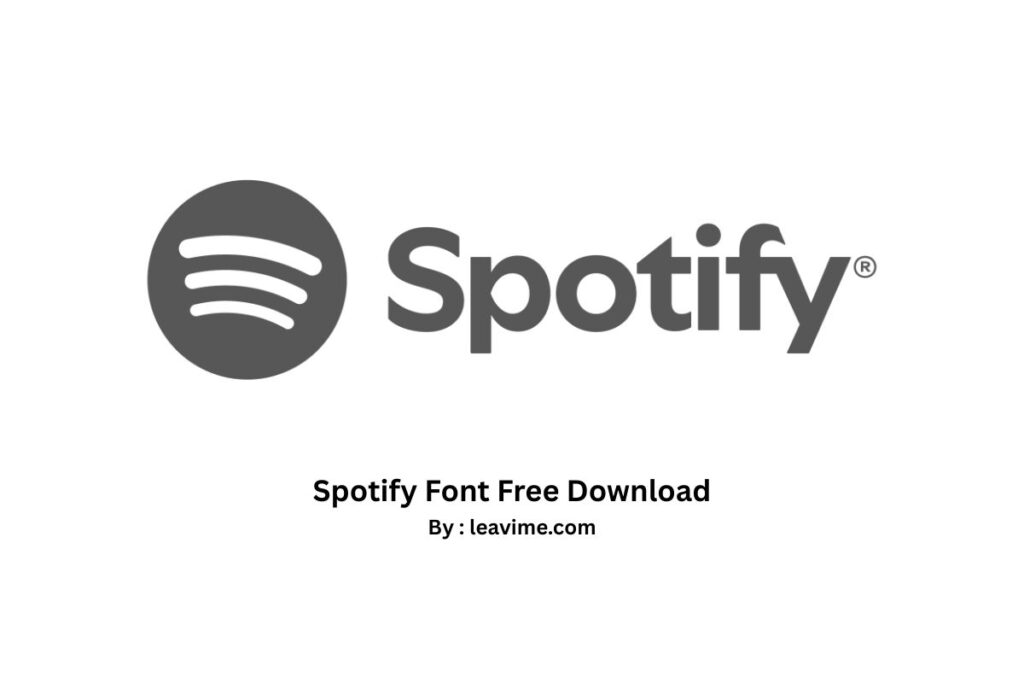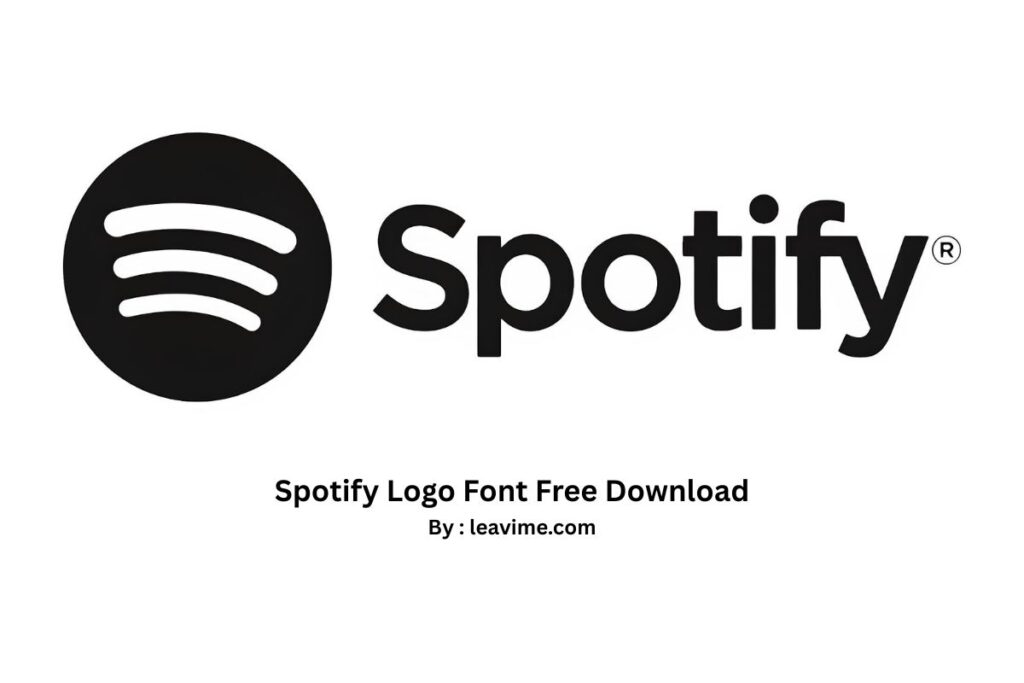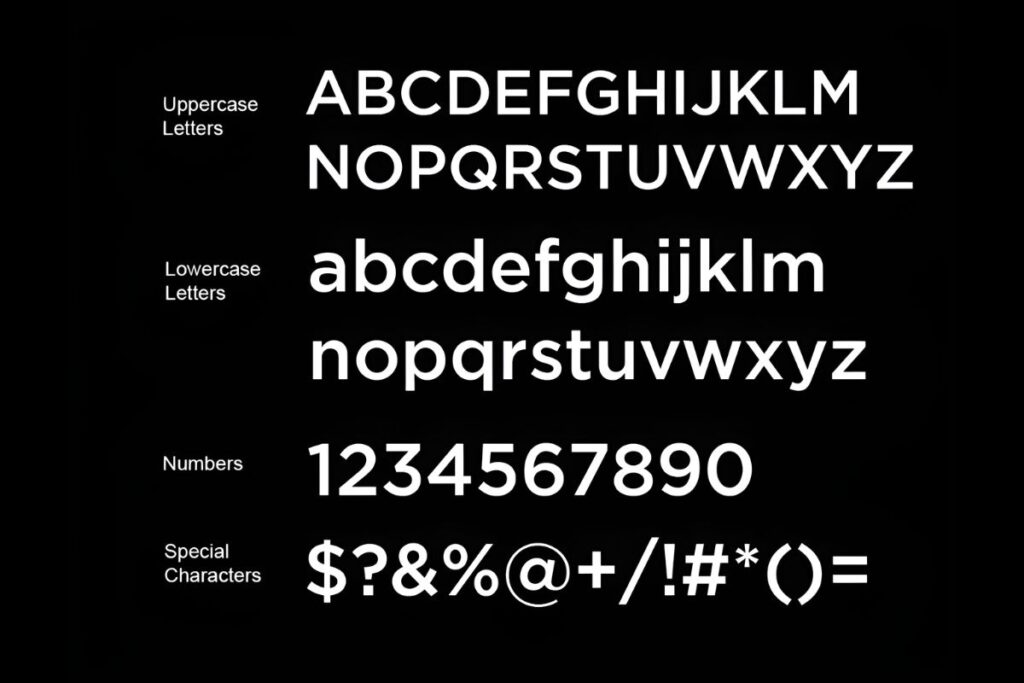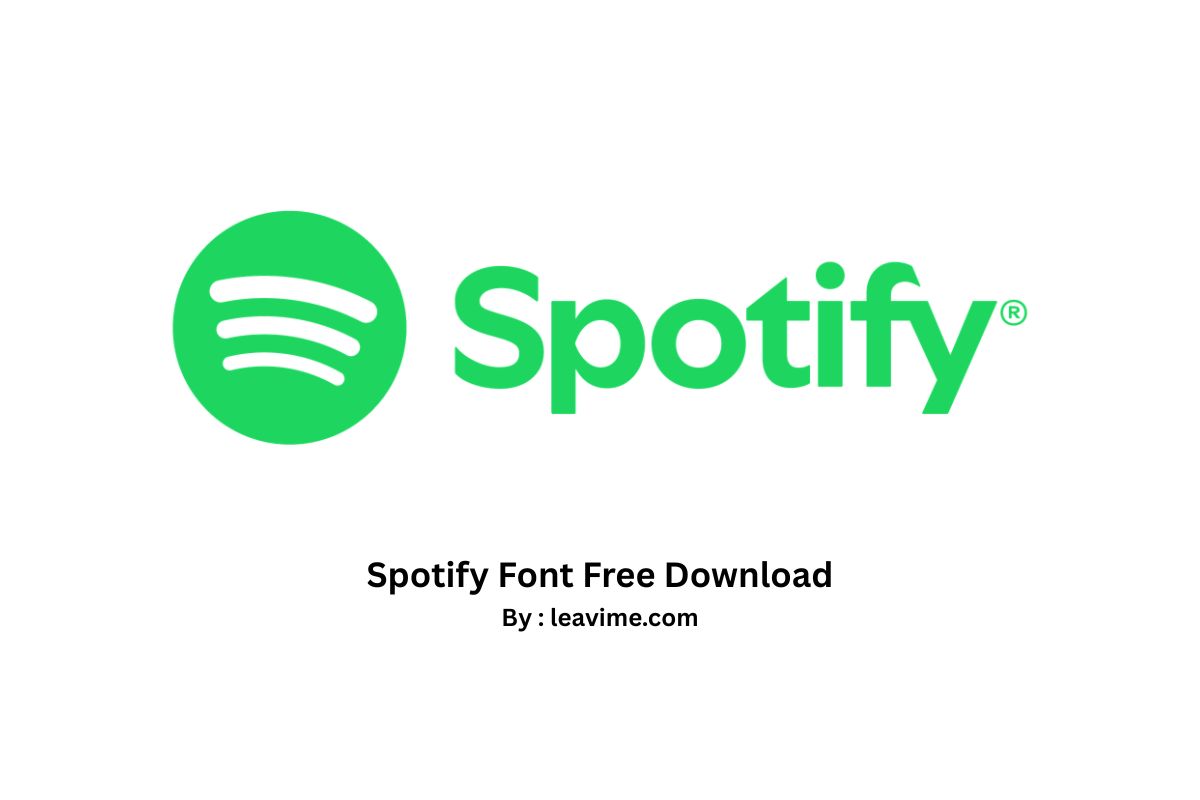
Spotify Font
Spotify Logo Font
Spotify Font is inspired by the visual identity of one of the world’s most recognizable music streaming platforms. Since Spotify was founded by Daniel Ek and Martin Lorentzon in 2006, its branding has evolved into a clean and modern style that reflects innovation and simplicity. The typeface associated with the platform attracts designers who appreciate a contemporary sans serif font for digital projects, branding, social media graphics, and creative presentations.
The distinctive appearance of Spotify Font makes it a popular choice for anyone looking to recreate a similar modern aesthetic. Its smooth letterforms and balanced proportions create excellent readability while maintaining a professional look. Whether you are designing posters, website headers, or promotional materials, this versatile family font offers a stylish solution that works well across both print and digital media.
Many creators search for Spotify Font because of its connection to one of the most recognizable brand identities in the music industry. Although the official typeface is part of Spotify’s branding, similar alternatives can help achieve the same clean and contemporary appearance. If you are looking for inspiration for your next logo font, this style delivers a modern visual impact that is suitable for branding, advertising, packaging, and other creative design projects.